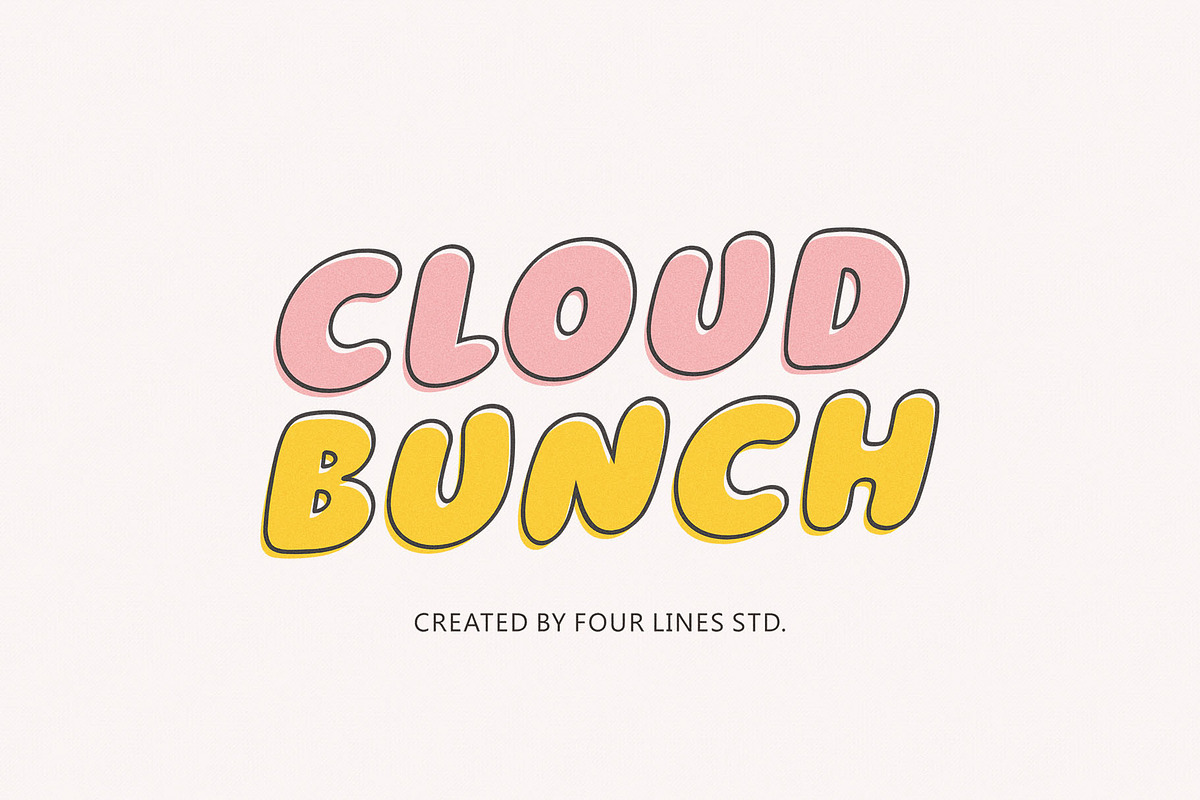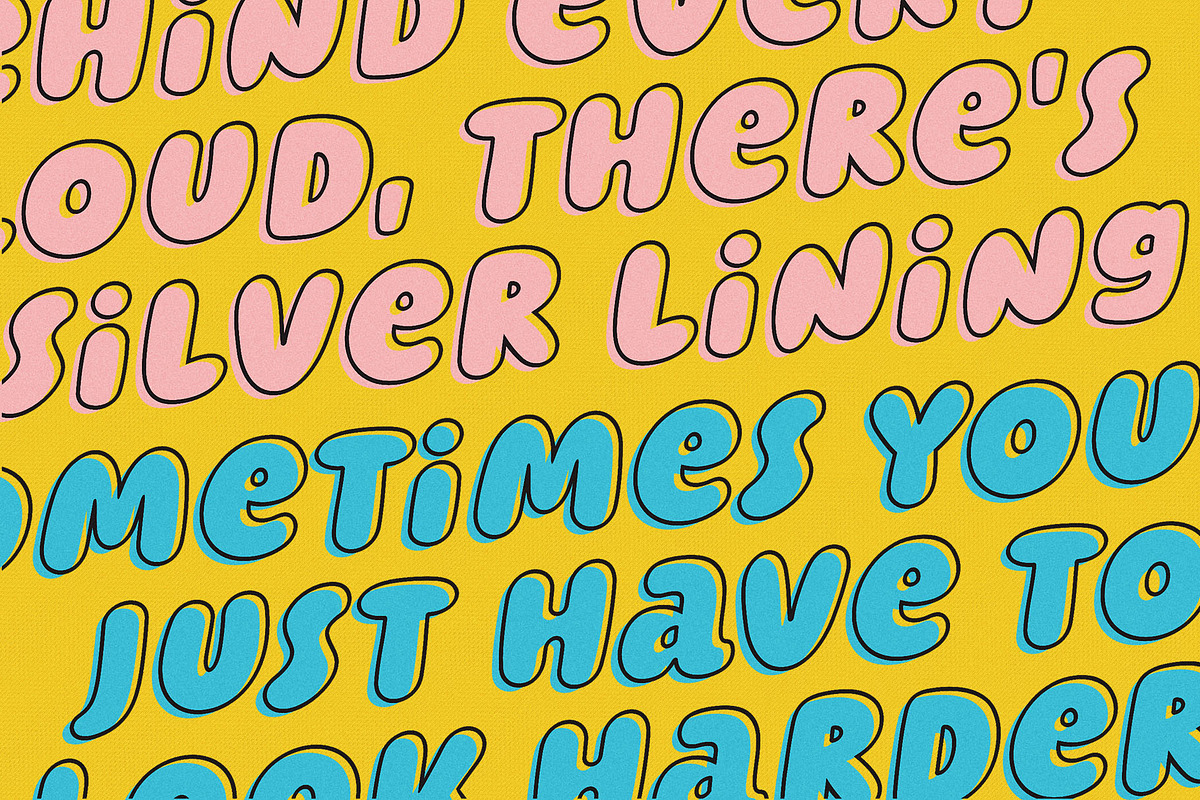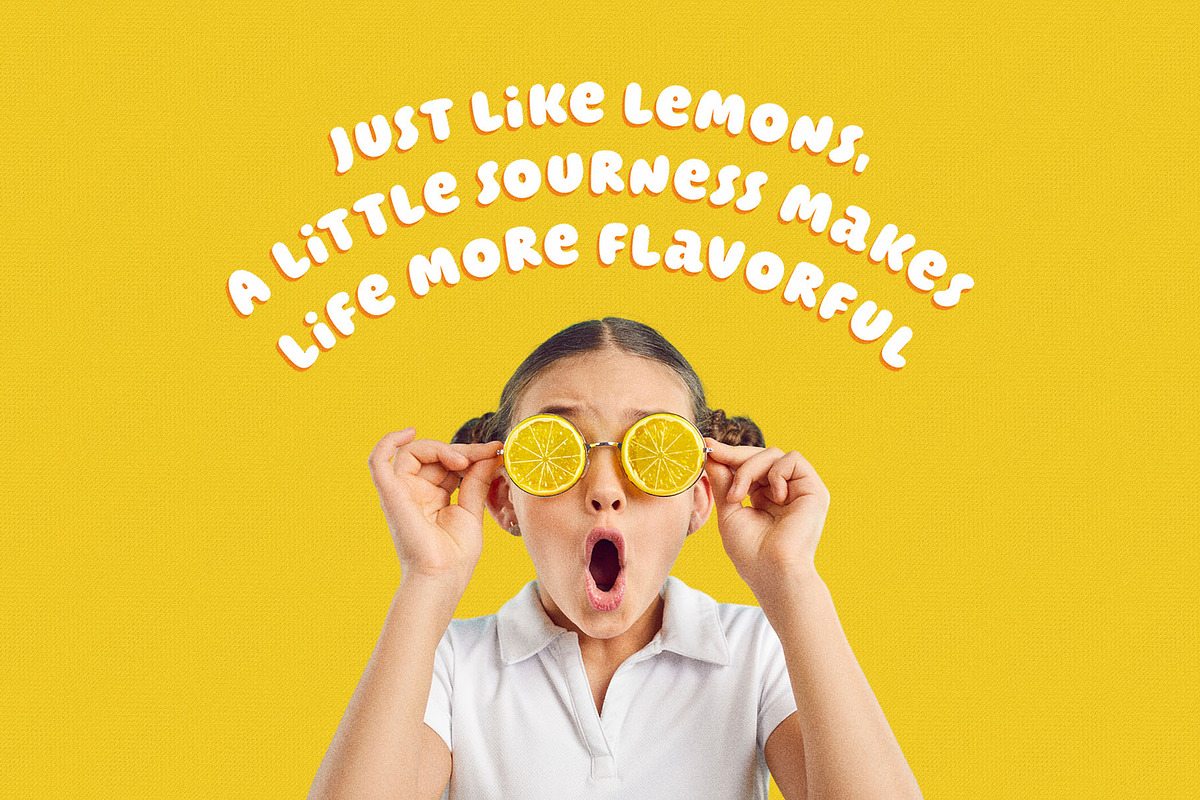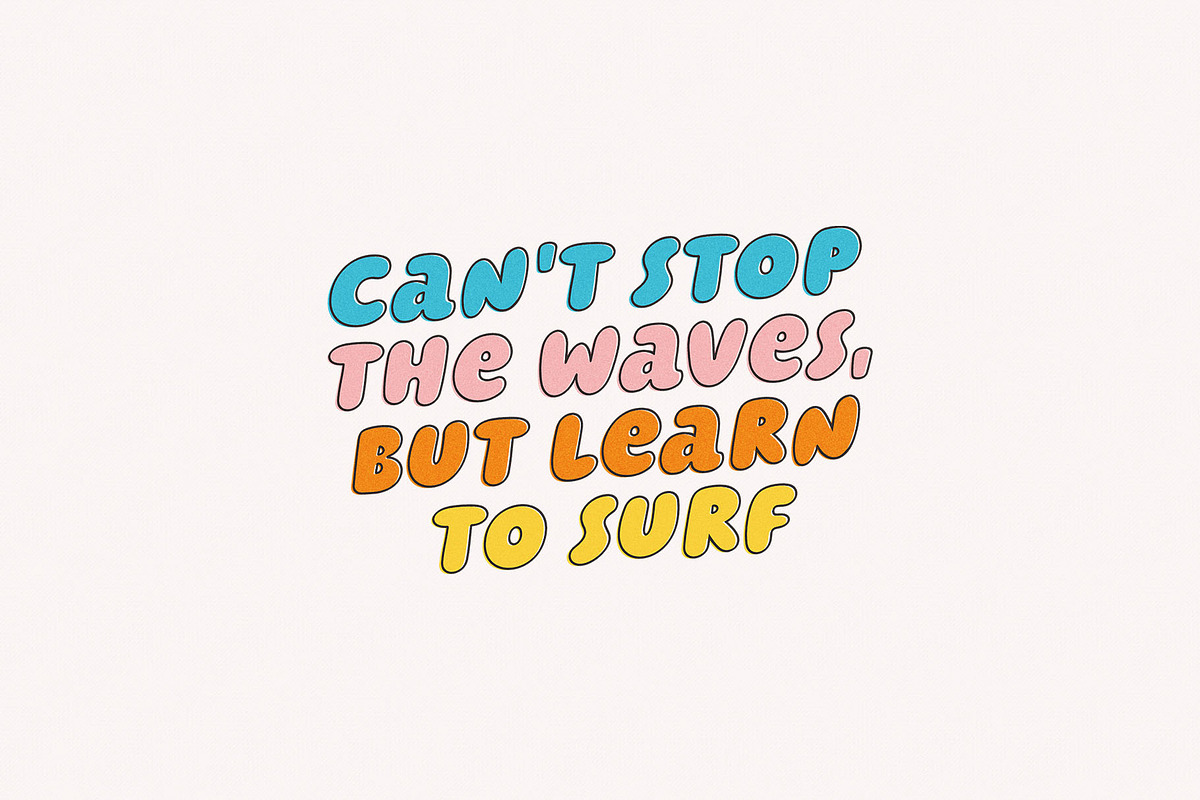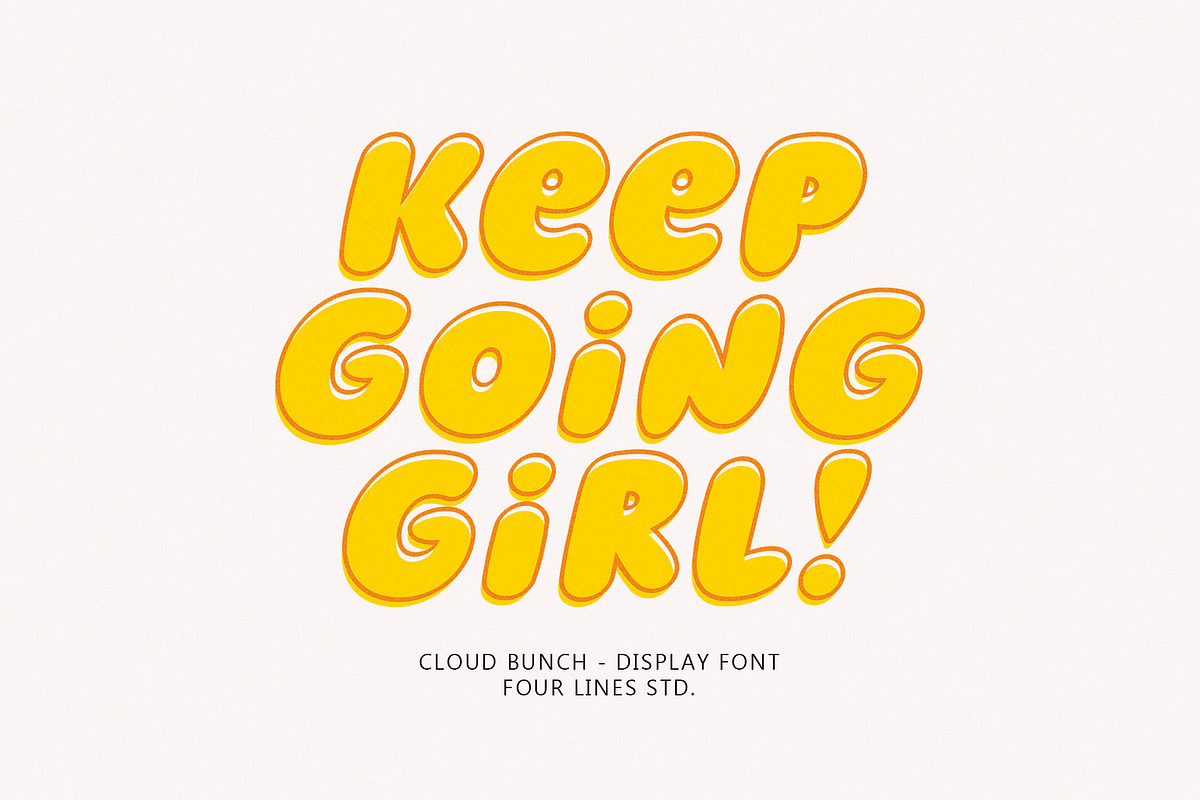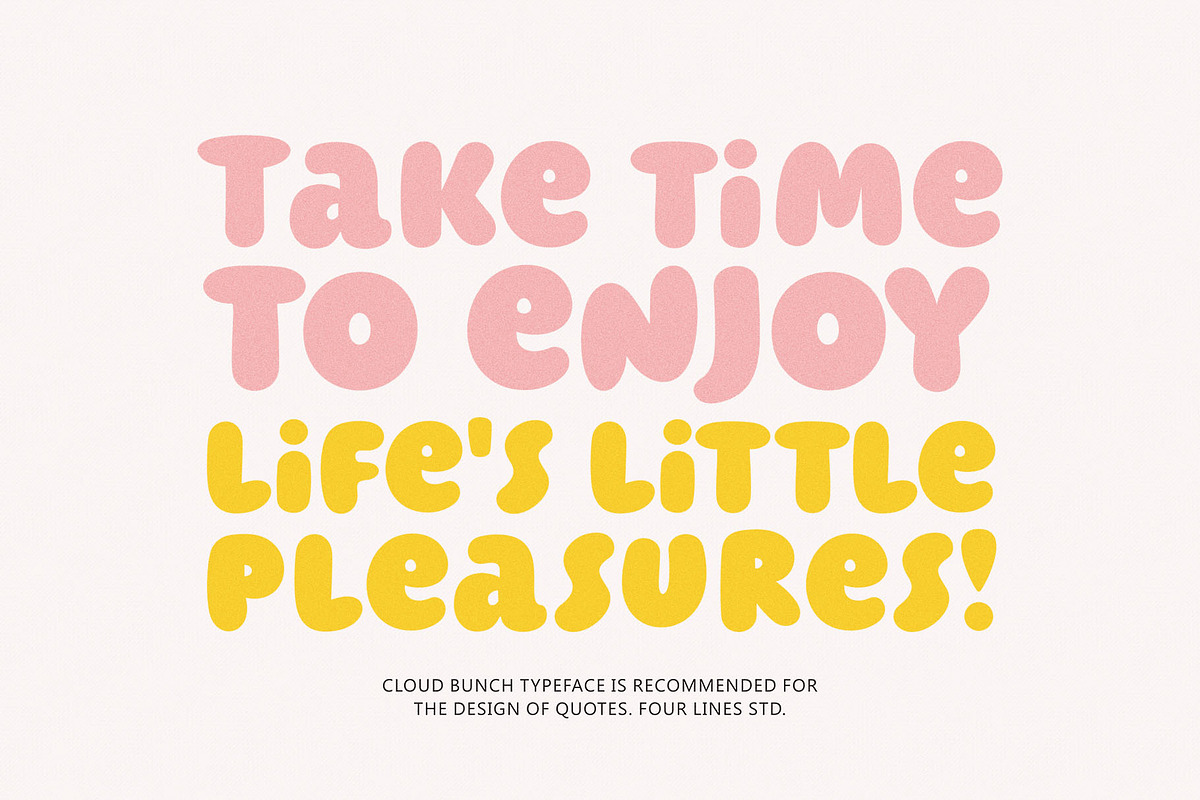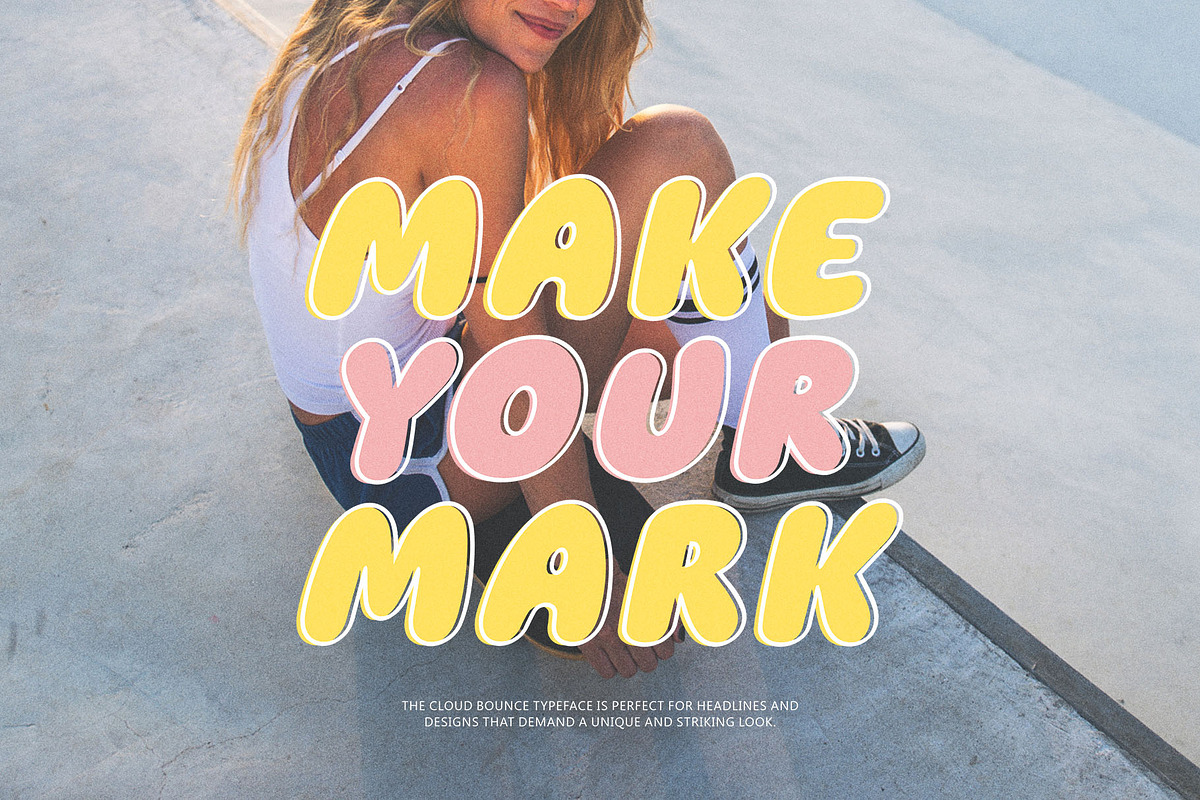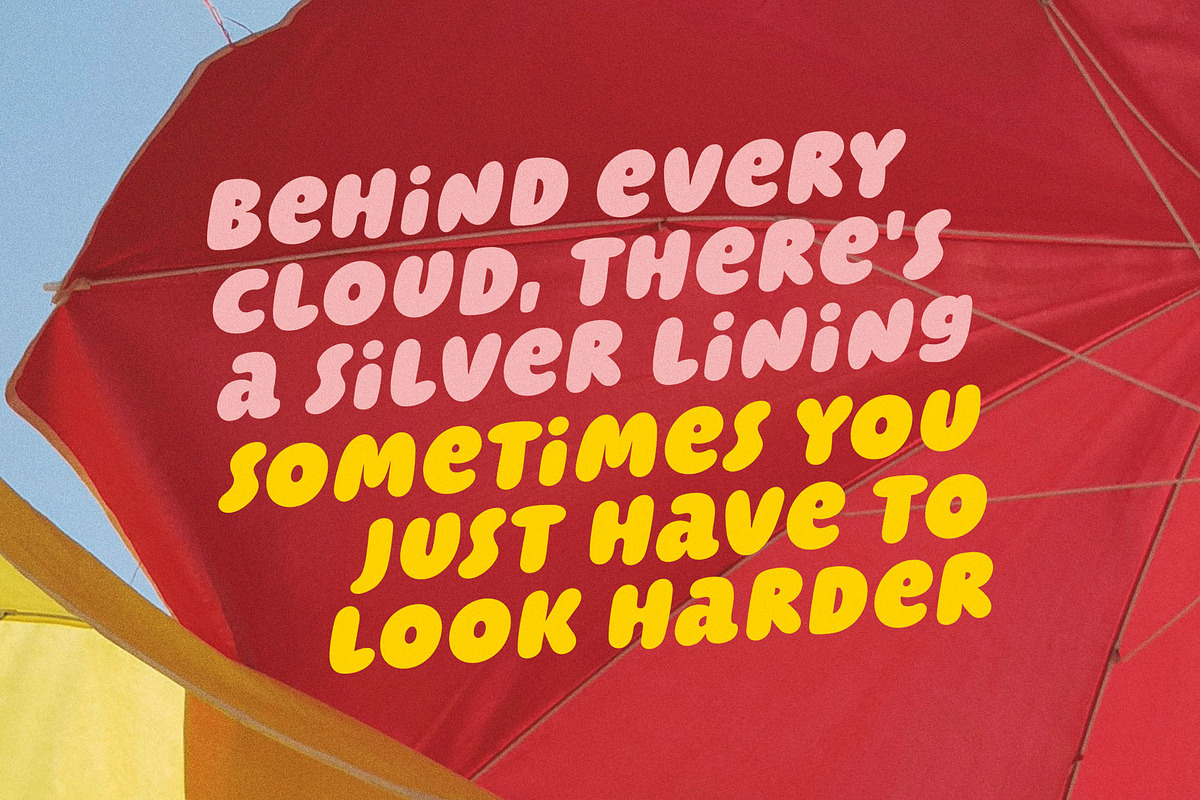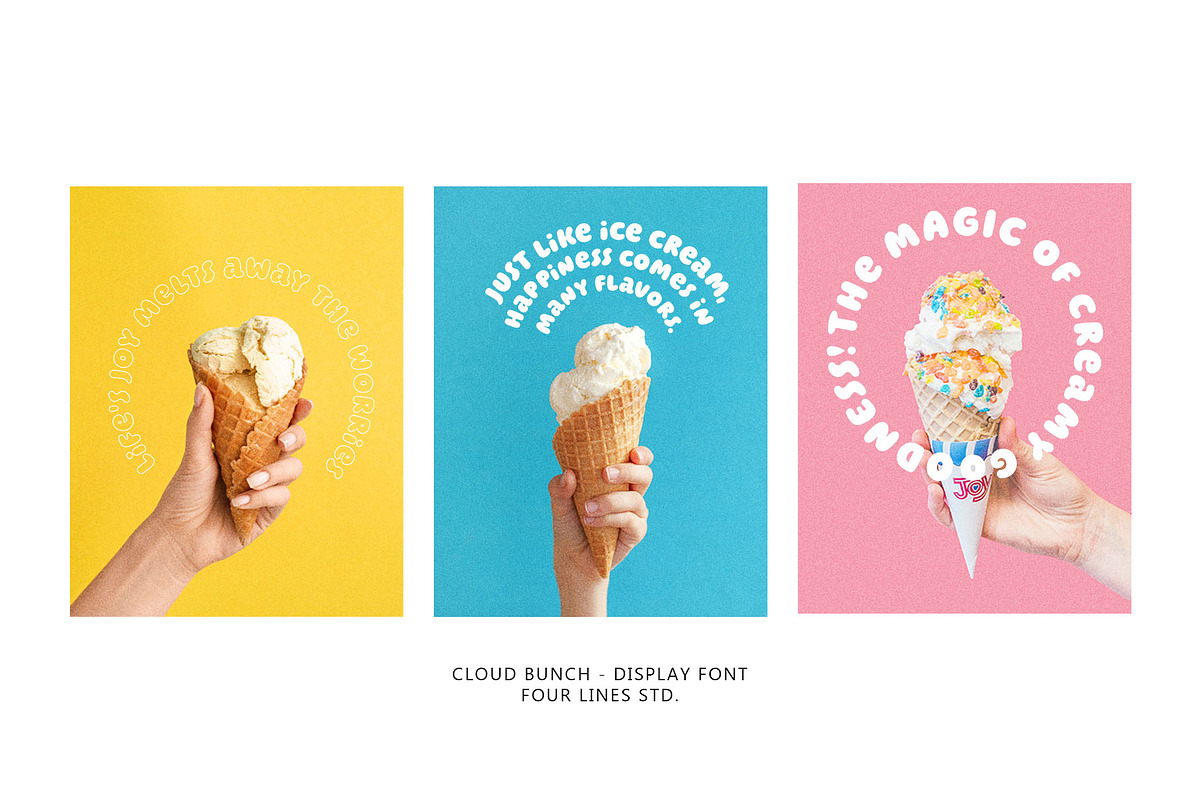
Cloud Bunch - Playful Display Typefa
Cloud Bunch is a playful and eye-catching display font family that brings a sense of fun and casual charm. It comes in four distinct styles: Regular, Italic, Hollow Regular, and Hollow Italic. With its rounded shapes and smooth curves at every corner, Cloud Bunch delivers a bubbly, cheerful vibe that is perfect for designs that need to stand out. Whether you're working on a bold promotional ad or any project that requires a touch of creativity, this font offers a unique, lively aesthetic that grabs attention while maintaining a relaxed, approachable feel.